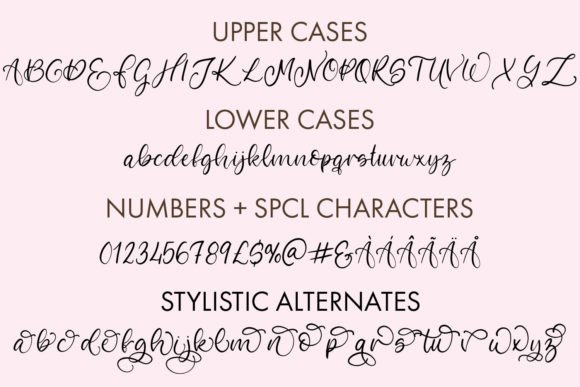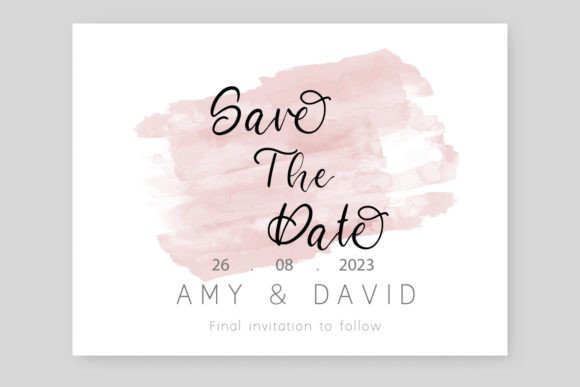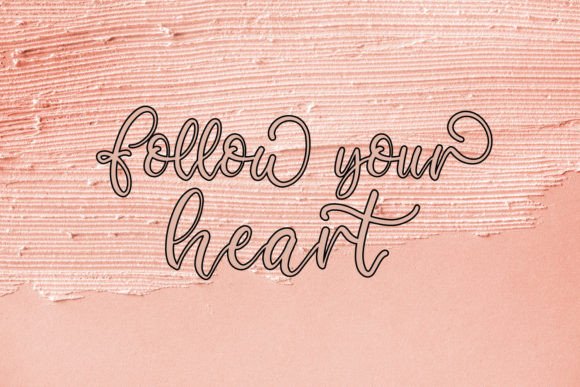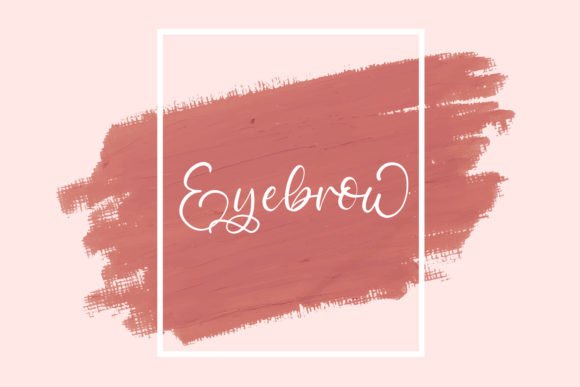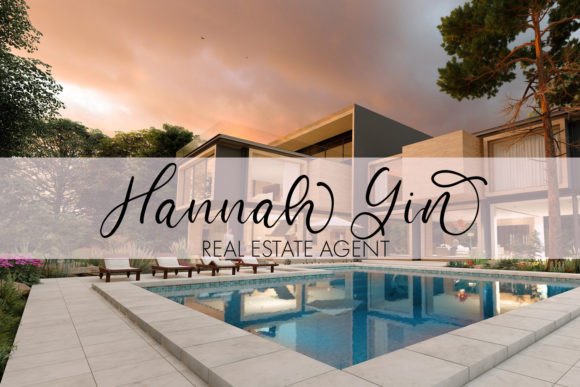
Introducing Anjelika Font: Elevate Your Designs with Elegance and Whimsy
In the world of typography, few fonts capture the essence of elegance and charm as beautifully as Anjelika Font. This stunning handwritten script font is designed to add a touch of sophistication and whimsy to a wide range of design projects. Whether you’re a professional designer, a crafty DIY enthusiast, or a small business owner looking to create a unique brand identity, Anjelika Font is an exceptional choice.
What Makes Anjelika Font Special?
Anjelika Font stands out for its beautiful, flowing script that exudes elegance and charm. This font is not just a simple collection of characters; it’s a comprehensive set of glyphs and ligatures designed to give your text a unique and personalized look. Here are some key features that make Anjelika Font a must-have for designers and crafters:
- Handwritten Script Style: Anjelika boasts a lovely handwritten script style that adds a personal touch to any design. Its fluid strokes and graceful curves make it perfect for creating eye-catching and memorable pieces.
- Stylistic Alternates: To provide more versatility, Anjelika comes with additional stylistic alternates. These alternates allow you to customize your text, making it more dynamic and interesting. Whether you want to emphasize certain words or simply add some variety to your design, these alternates have got you covered.
- PUA Encoded: Anjelika Font is PUA (Private Use Area) encoded, which means you can easily access all the glyphs and ligatures. This encoding ensures that you can unlock the full potential of the font, making it straightforward to use and incorporate into your projects.
Ideal Uses for Anjelika Font
Anjelika Font’s versatility makes it suitable for a wide range of applications. Here are some of the ideal uses for this beautiful font:
- Wedding Invitations: Add a touch of romance and elegance to your wedding invitations. Anjelika’s flowing script is perfect for conveying the joy and beauty of your special day.
- Thank You Cards: Express your gratitude with style using Anjelika Font. Its charming and personalized look makes it ideal for thank you cards and other correspondence.
- Quotes and Greeting Cards: Bring your quotes and greeting cards to life with Anjelika’s beautiful script. Whether it’s a motivational quote or a heartfelt message, this font will make it stand out.
- Logos and Business Cards: For businesses looking to create a unique and memorable brand identity, Anjelika Font can be a great choice. Its elegant look is suitable for logos, business cards, and other marketing materials.
Why Designers and Crafters Love Anjelika Font
Designers and crafters appreciate fonts that offer both aesthetic appeal and practicality. Anjelika Font checks all the boxes:
- Ease of Use: Thanks to its PUA encoding, using Anjelika Font is straightforward. You can access all the glyphs and ligatures easily, making the design process smooth and efficient.
- Customization: The additional stylistic alternates provide ample opportunities for customization. This feature allows designers to tailor the font to fit the specific needs of their projects.
- Aesthetic Appeal: The beauty of Anjelika Font lies in its elegant and whimsical design. It adds a touch of sophistication to any project, making it more visually appealing.
Anjelika Font is a beautiful and elegant handwritten script font that can elevate your designs with its charm and sophistication. Whether you’re working on wedding invitations, thank you cards, quotes, greeting cards, logos, or business cards, Anjelika is an excellent choice. Its PUA encoding, stylistic alternates, and overall aesthetic appeal make it a valuable addition to any designer’s or crafter’s toolkit.
So, if you’re looking to add a touch of elegance and whimsy to your projects, consider Anjelika Font. Its versatility, ease of use, and stunning design make it a perfect fit for a wide range of applications. Explore the possibilities with Anjelika Font and take your designs to the next level.